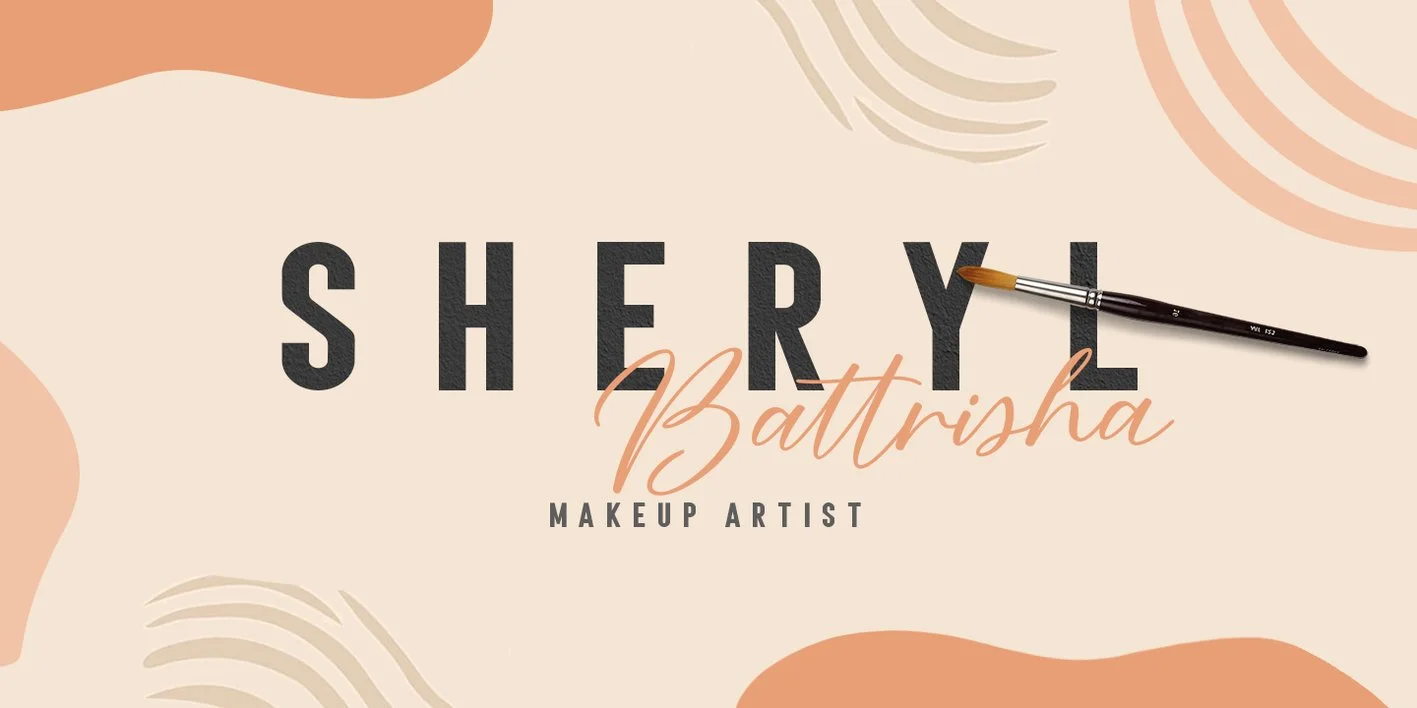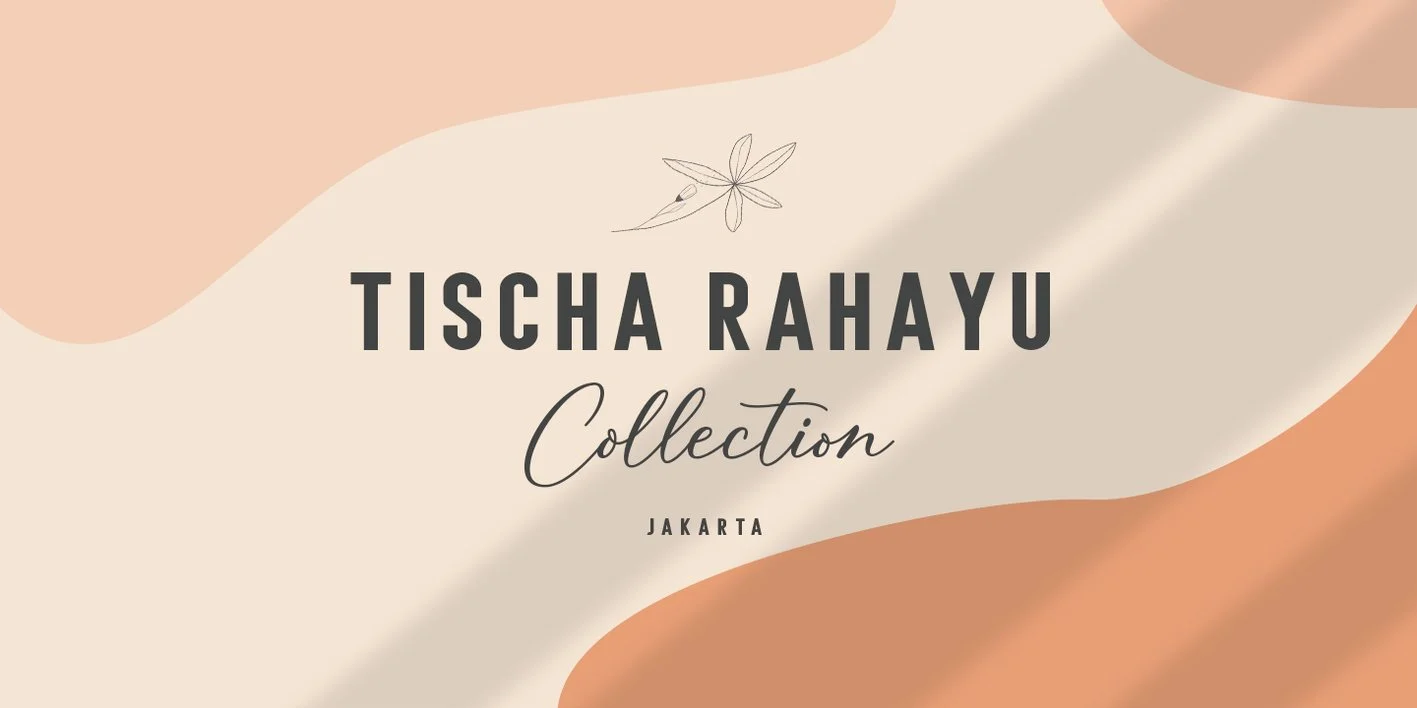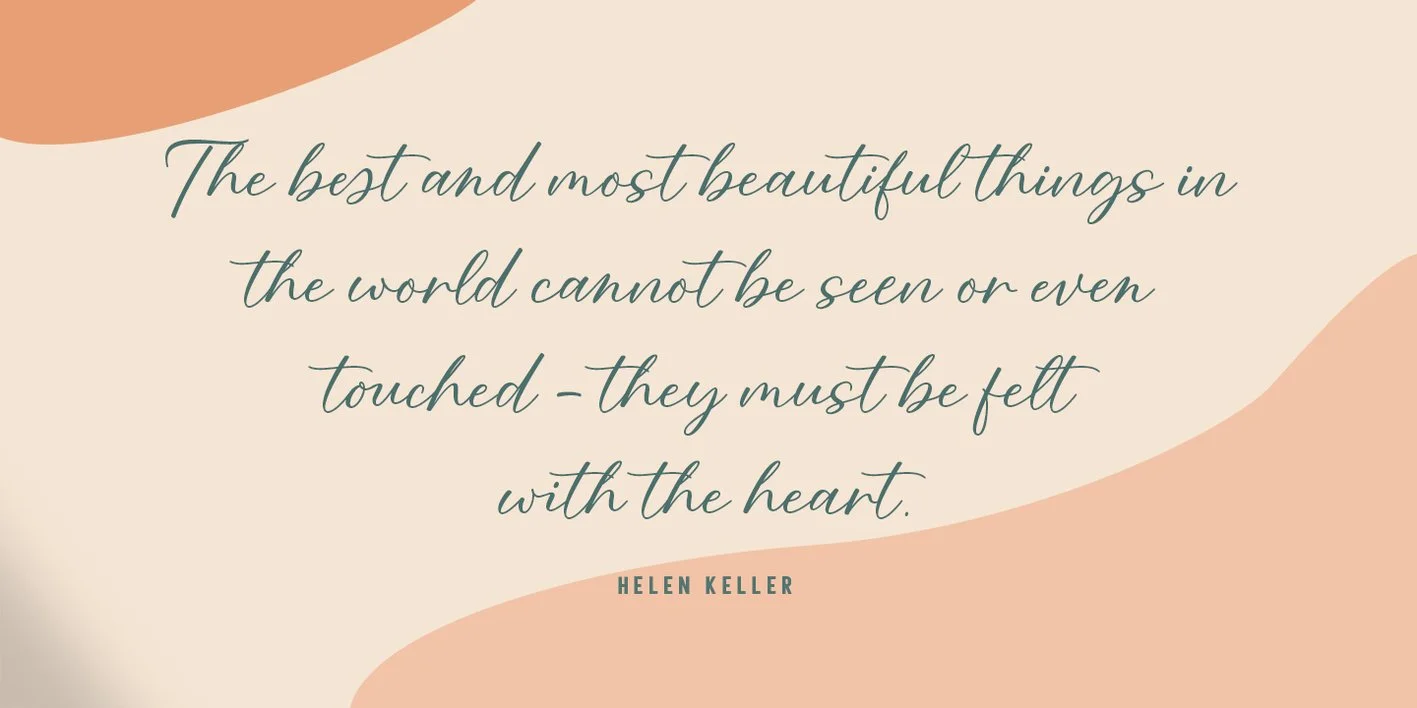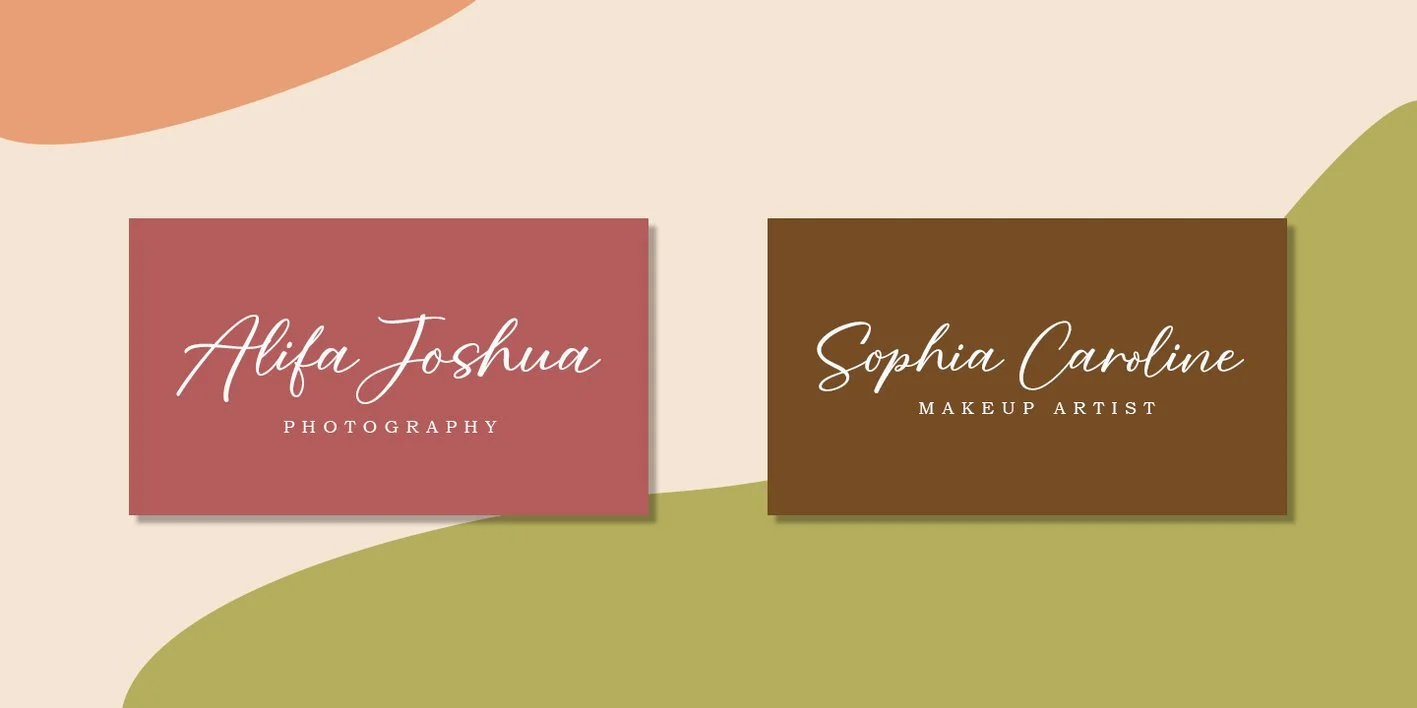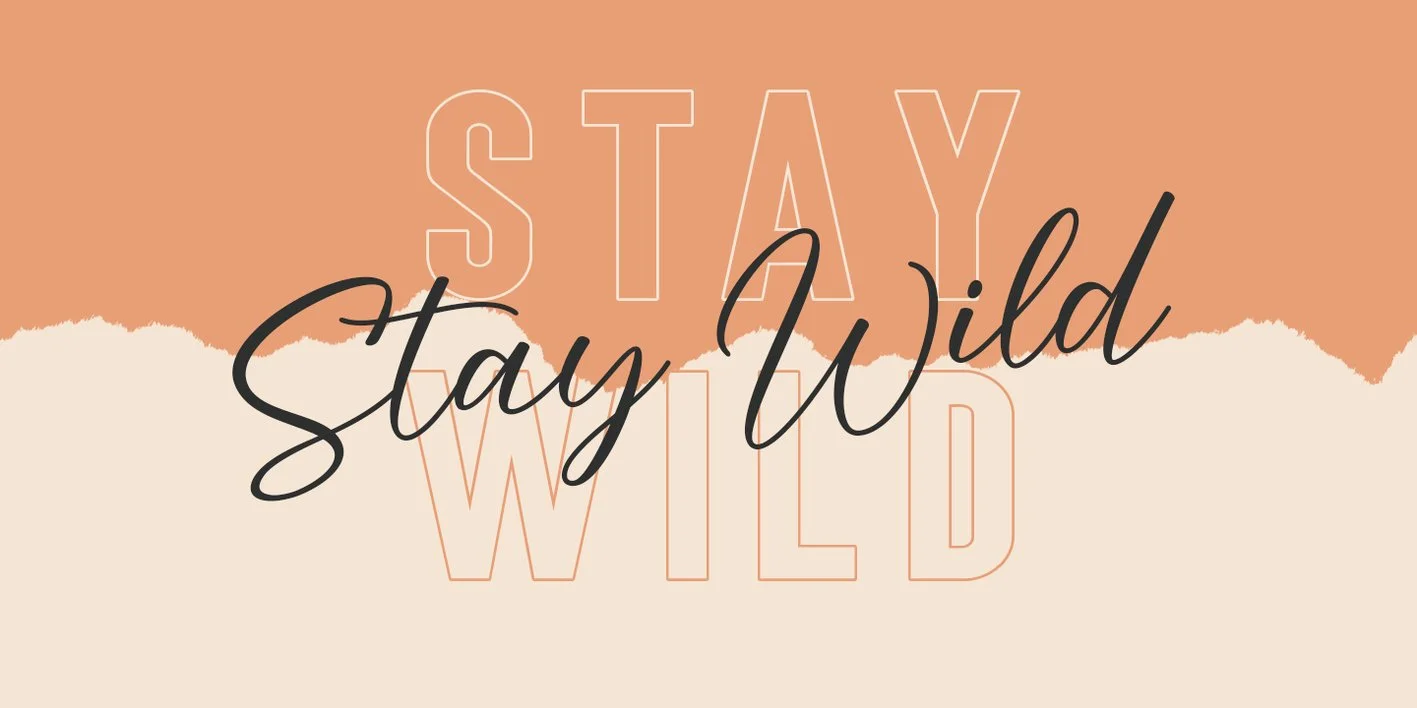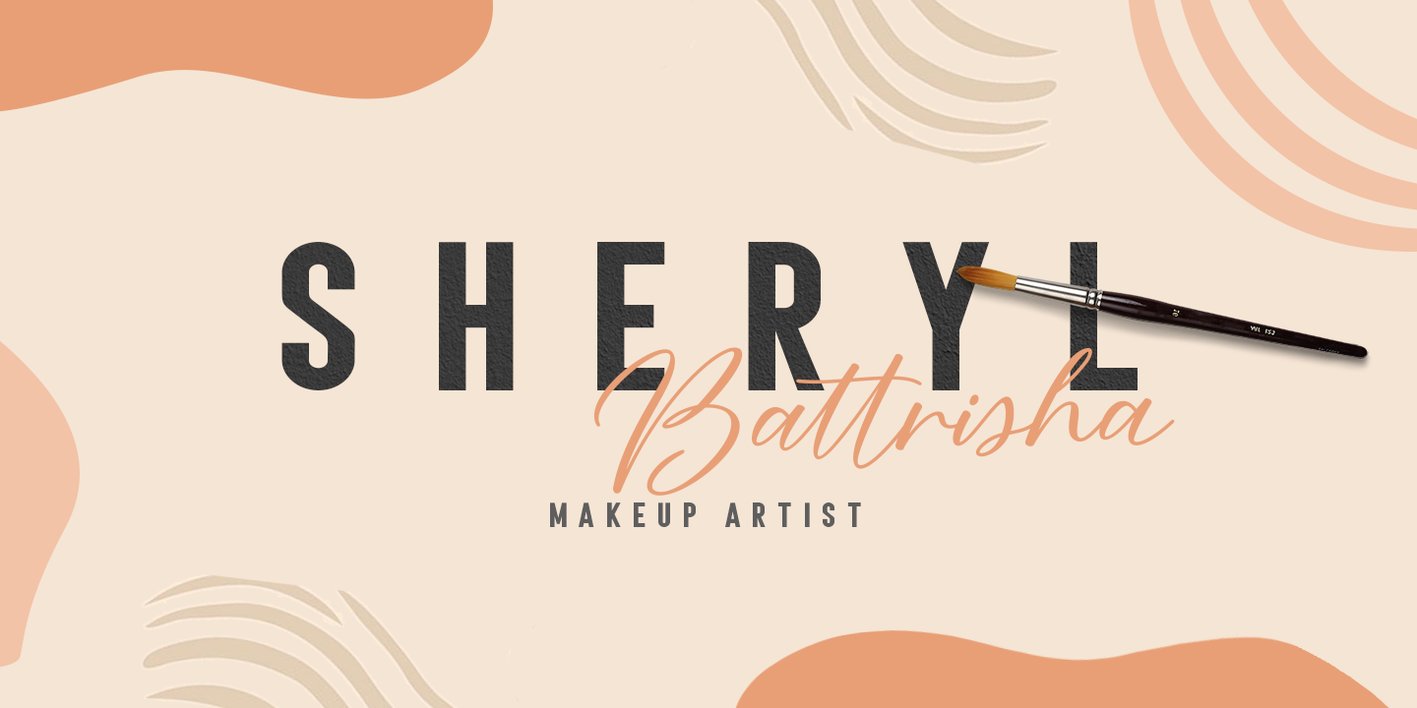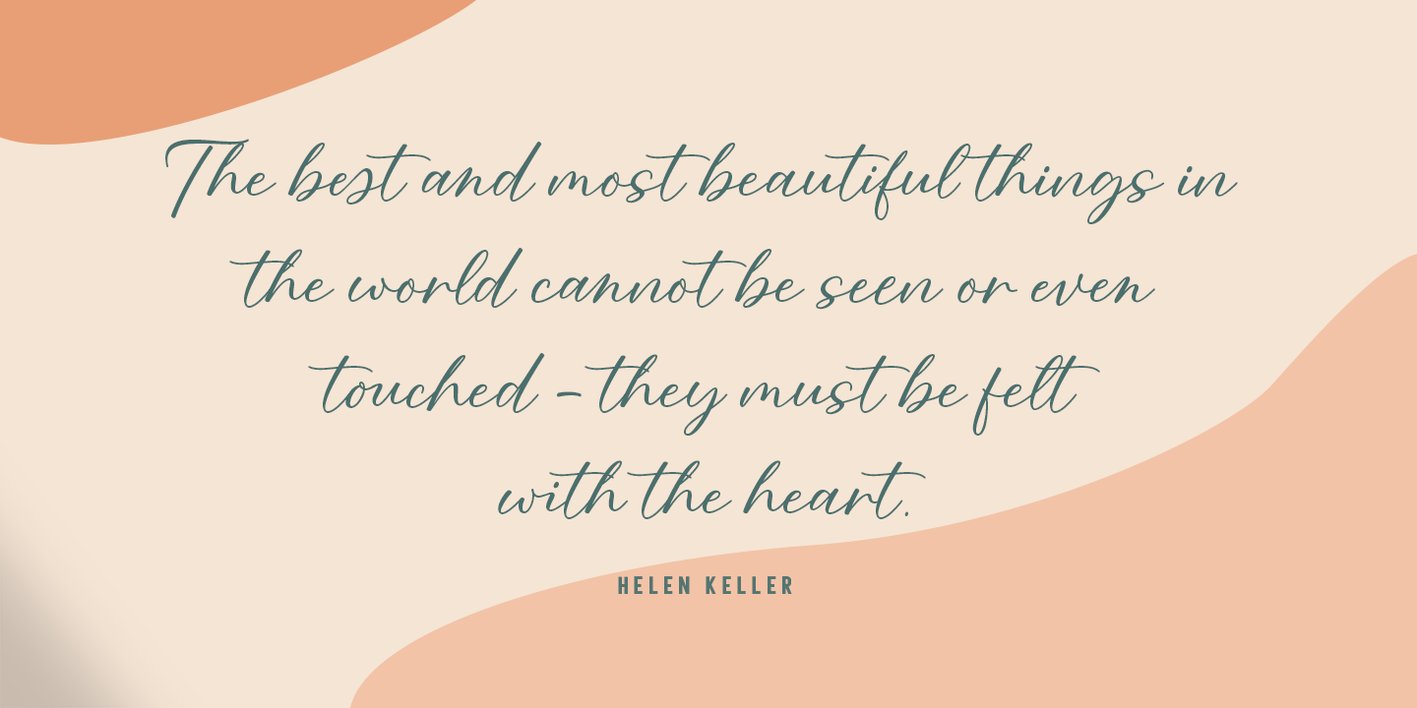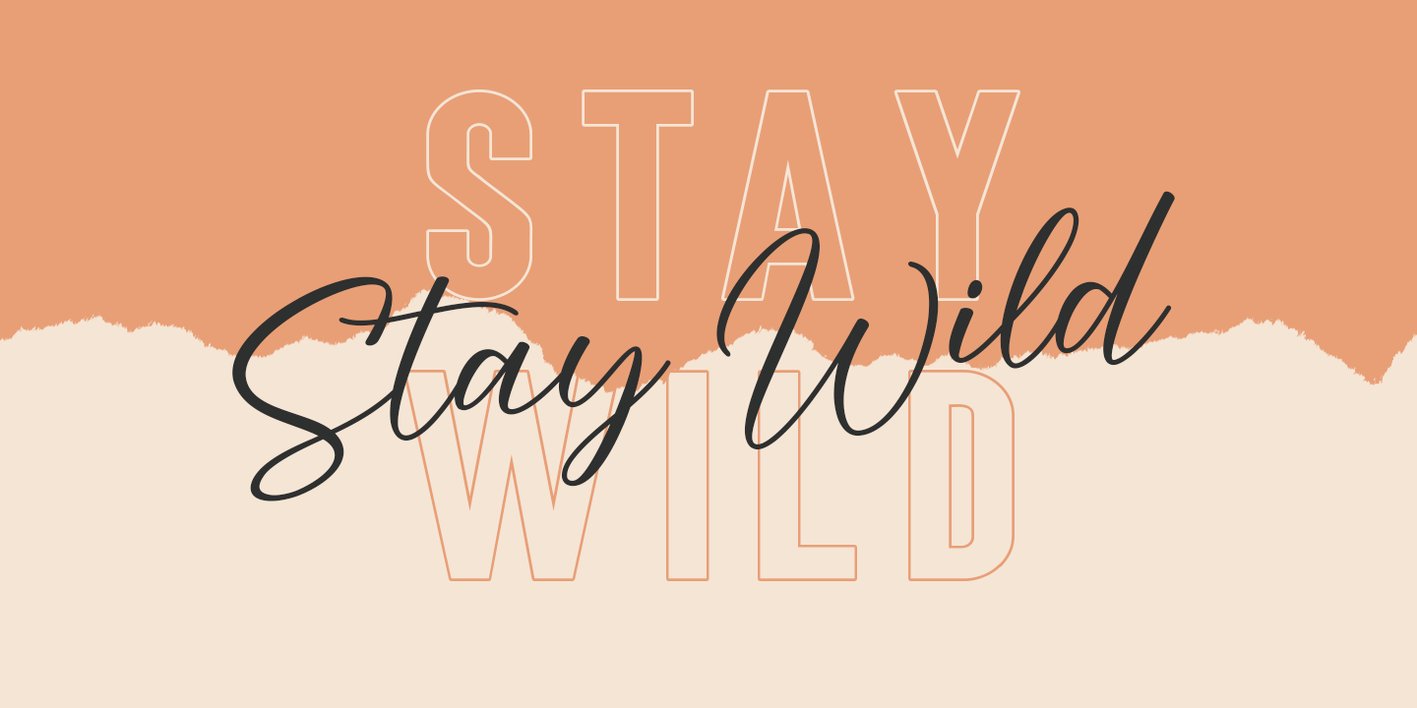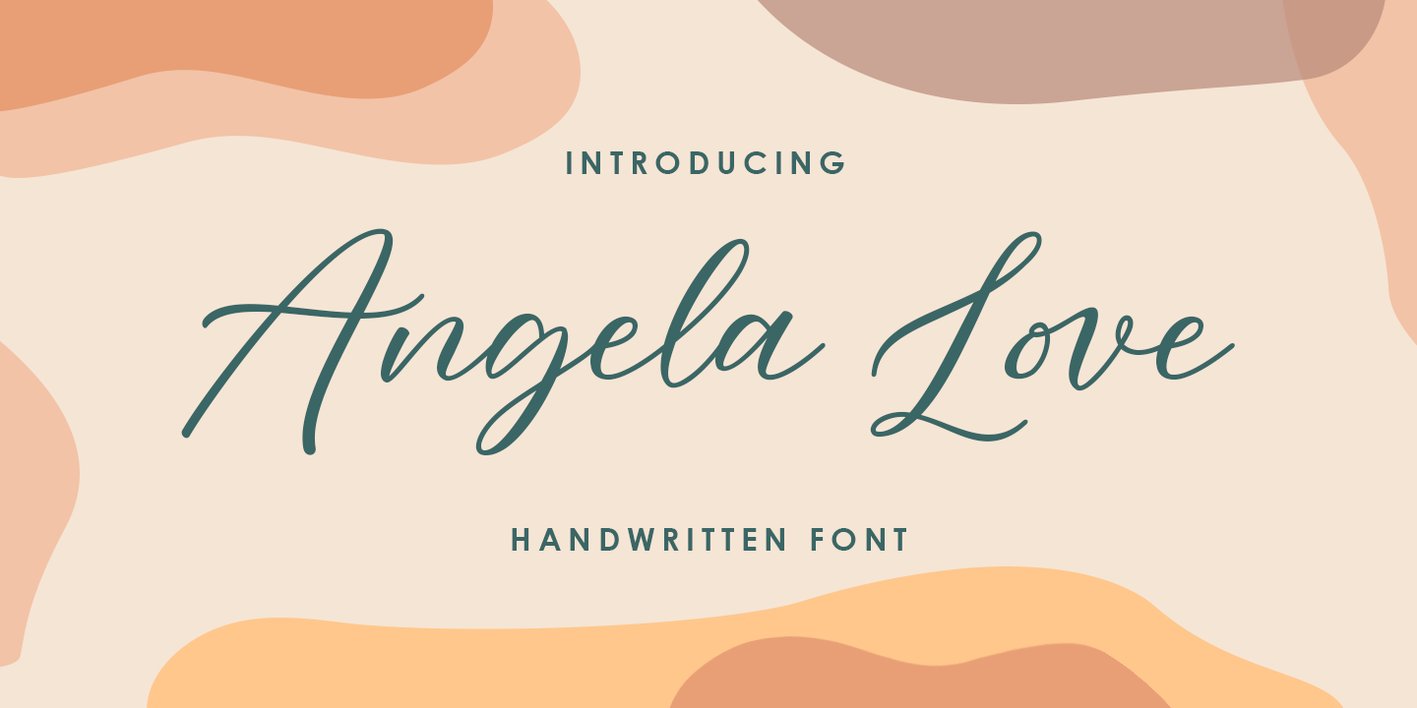
Angela Love Script Font
A good typeface communicates tone before a single word is read. Angela Love Script achieves this through controlled contrast that rewards close inspection. The typeface brings an elegant, calligraphic sensibility to a broad range of creative disciplines, with optical balance across all weights that holds up whether the work is print-first or screen-first.
In practice, Angela Love Script proves particularly effective for event signage, fragrance labels, logo design, perfume labels, signage systems. Designers reaching for it find that the type decisions feel resolved rather than laboured — a useful quality when client timelines are tight.
The range of applications extends to advertising campaigns, high-end cosmetic packaging, boutique logos, luxury stationery. That breadth is deliberate: the proportions and spacing were stress-tested across a wide range of mock briefs before the typeface was finalised.
Art directors commissioning type-led campaigns find Angela Love Script a reliable choice for projects that demand both personality and restraint. The design avoids the self-conscious quirkiness that dates quickly, settling instead for considered distinctiveness that holds up over time.